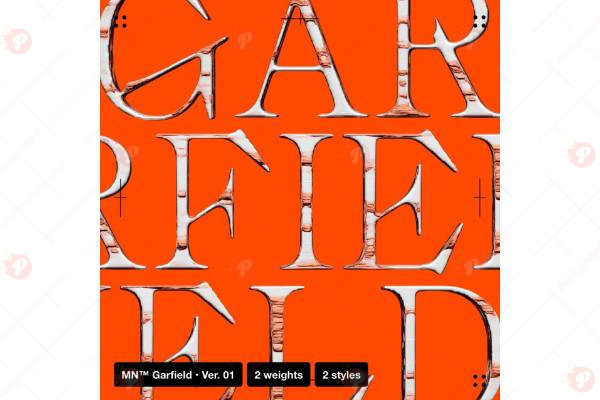
The MN™ Garfield Font Free is a fun and playful cartoon typeface inspired by comic lettering and animated vibes. With its bold curves, quirky style, and friendly personality, this font is perfect for children’s books, comics, posters, cartoons, branding, and social media content.
Its comic-style design makes it ideal for projects that need a lighthearted, cheerful, and creative touch. Whether you’re designing for kids’ products, fun event flyers, YouTube thumbnails, or gaming graphics, the MN™ Garfield Font Free will add a vibrant and animated look to your typography.
Typeface: Cartoon / Comic / Display
Style: Playful / Bold / Friendly / Fun
Perfect for: Comics, Kids Design, Posters, Gaming, Social Media, Creative Branding
Bring your projects to life with the MN™ Garfield Font Free – a typeface full of energy and fun! 🎉